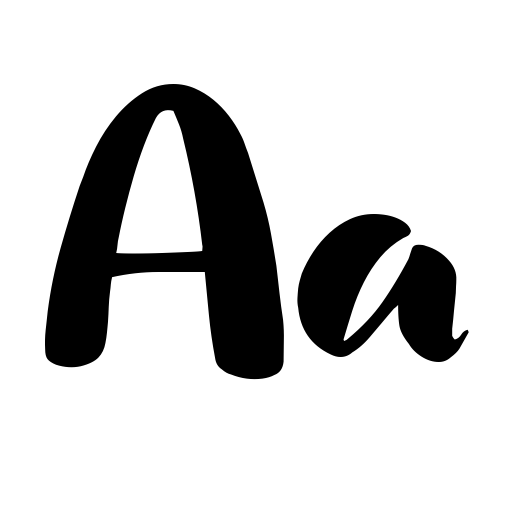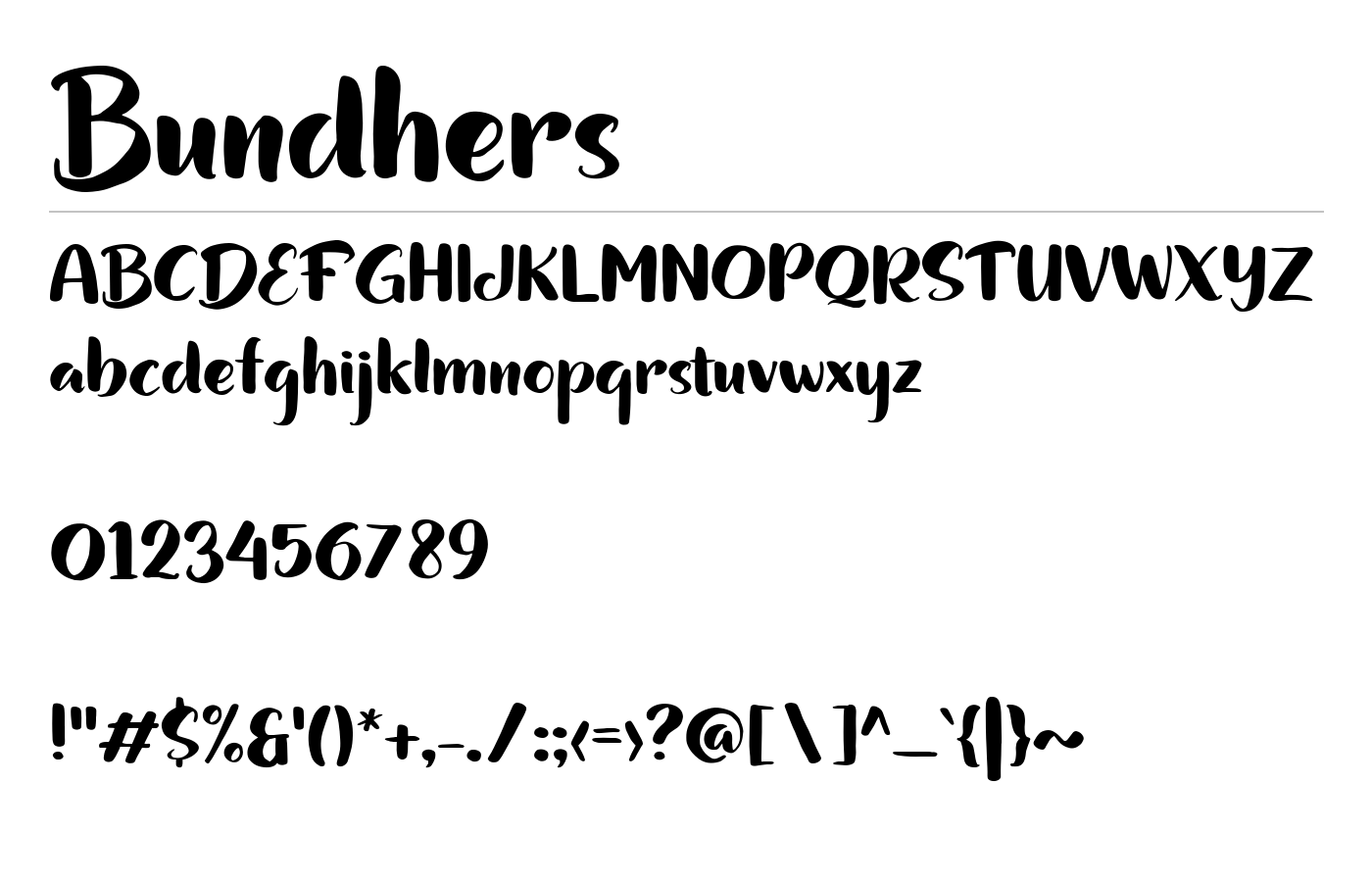
Bundhers is a lively and bold handwritten font with a playful yet polished character, featuring medium weight and smooth, rounded strokes that create a friendly and approachable feel. Its unique letterforms, including single-story 'a' and 'g', along with slightly irregular shapes, give it an organic, casual charm ideal for branding, packaging, and headlines where personality and warmth are key. This font works best in creative, informal contexts where a touch of handcrafted style adds distinctiveness and energy.
Bundhers Font
About Bundhers Font
| Font family | Bundhers Font |
| Designer | Patria Ari Wijonarko |